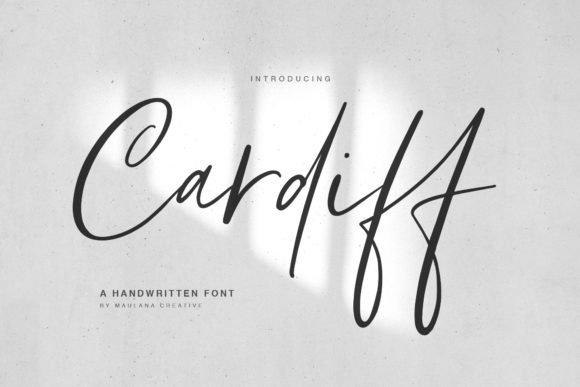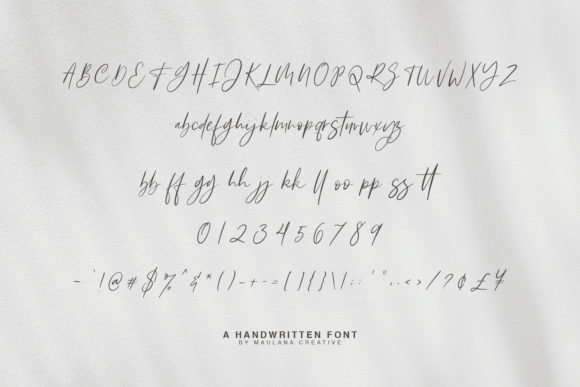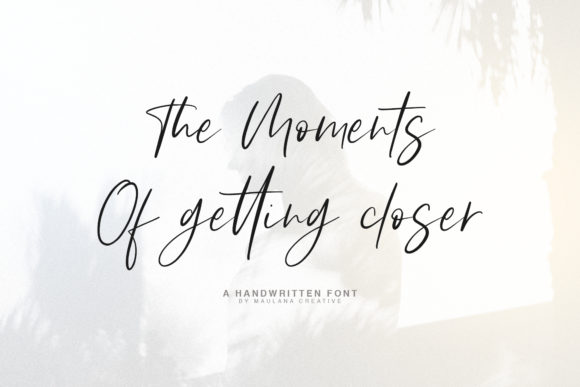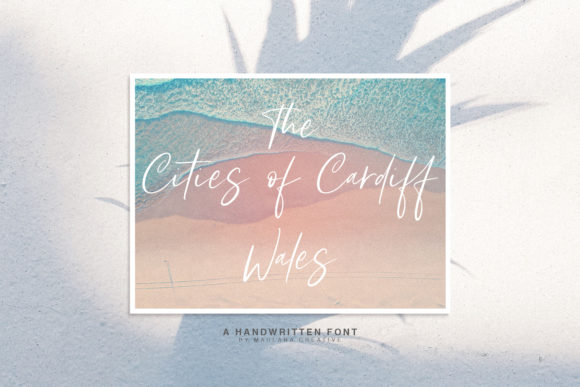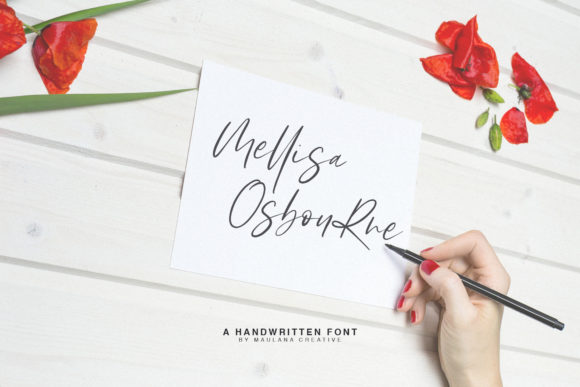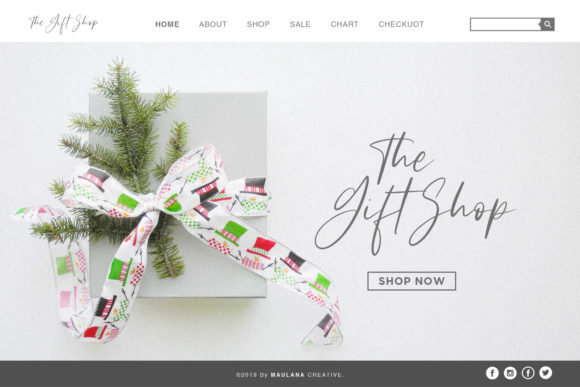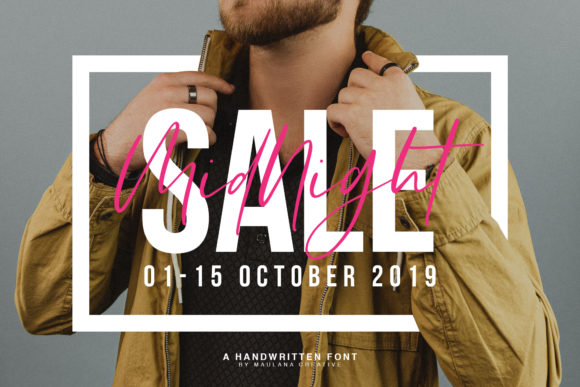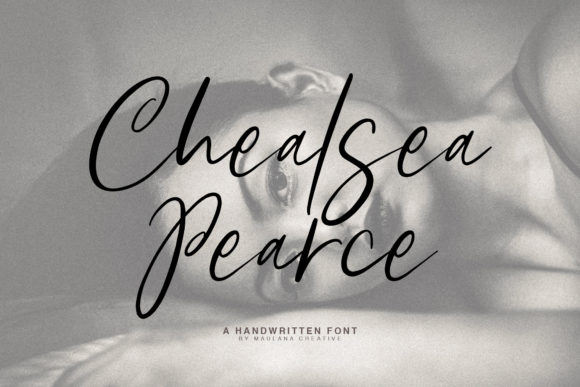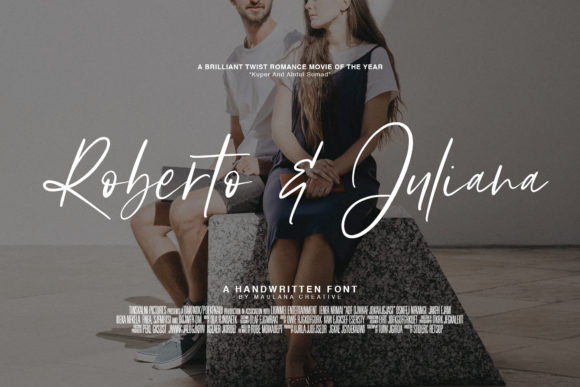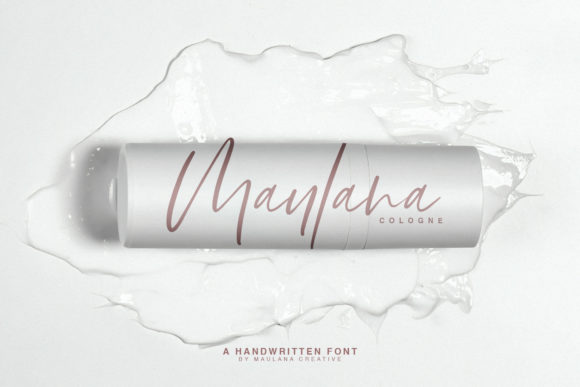
HomeScript FontsCardiff Font Script Fonts Cardiff Font FacebookXPinterestWhatsApp Cardiff Font Poster 2 Cardiff Font Poster 3 Cardiff Font Poster 4 Cardiff Font Poster 5 Cardiff Font Poster 6 Cardiff Font Poster 7 Cardiff Font Poster 8 Cardiff Font Poster 9 Cardiff Font Poster 10 About Cardiff Font Cardiff is a stunningly light script that will easily give your designs an authentic, hand-crafted feel. DOWNLOAD ON CREATIVE FABRICAThis font is sold and delivered by Creative Fabrica. Font Canyon may earn a commission if you buy through this link. People also explored Funny Sports Western Dressing Minimalist Flowers Font Rabbit Shadow Font Blues Nesmoke Font Love Baloon Font Hallory Font Hello Rosie Font Handricks Font 330 0 TagsCardiff Font Previous articleSpellkid FontNext articleDreamy Font LEAVE A REPLY Cancel reply Comment: Please enter your comment! Name:* Please enter your name here Email:* You have entered an incorrect email address! Please enter your email address here Website: Save my name, email, and website in this browser for the next time I comment. Personal Use Free Market Love Personal Use Free Read more about this font Better Together Duo Personal Use Free Read more about this font Gdynia Personal Use Free Read more about this font Relic Island 2 Personal Use Free Read more about this font BLOG Free Fonts Risk: Why Free Fonts Can Be Dangerous for Designers Free Fonts Risk: Why Free Fonts Can Be Dangerous for Designers Using free fonts is a common practice in web and graphic design. However, the... How to Cut Any Font on Cricut: Convert a Font to SVG (Free) Fonts That Capture the Spirit of New York City Elegant Wedding Invitation Fonts – Handwritten & Script Fonts